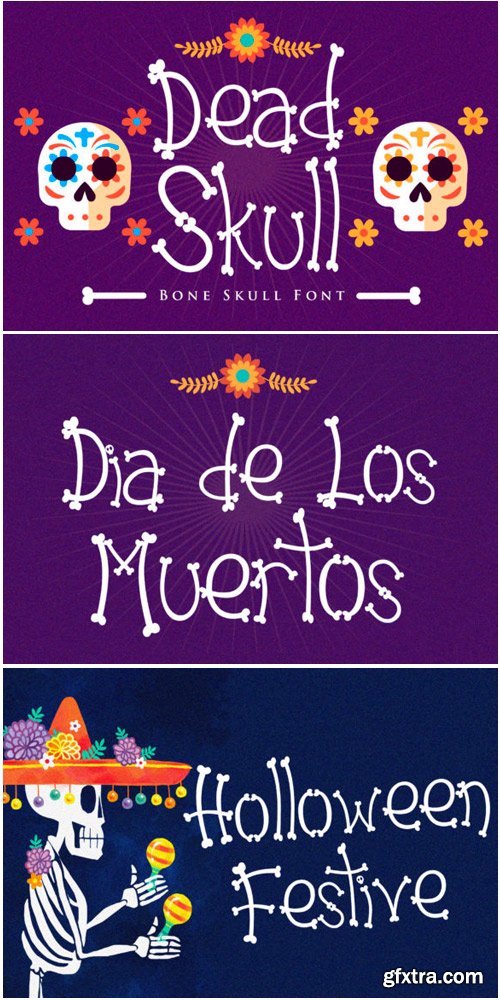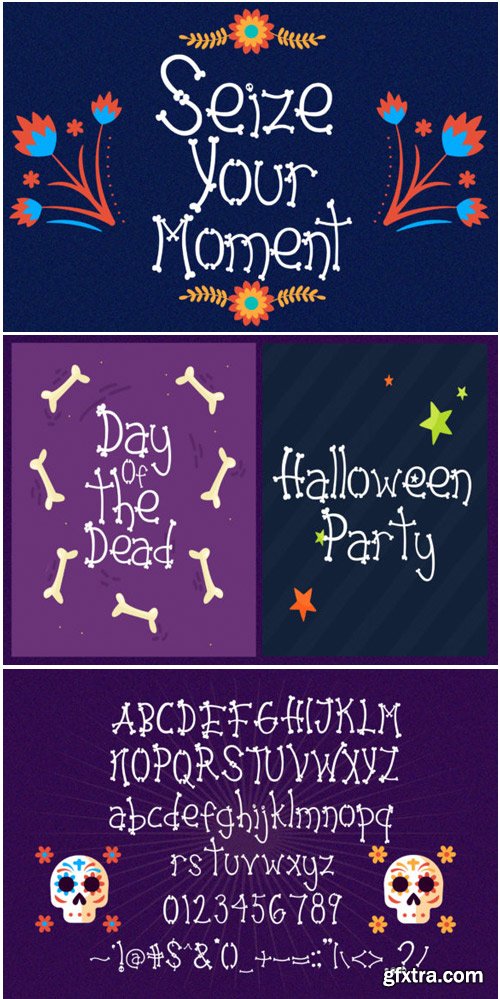
Dead Skull Font
With its letters consisting of bare bones, Dead Skull celebrates all things scary. Use it to take any Dia de los muertos or Halloween project to the next level!